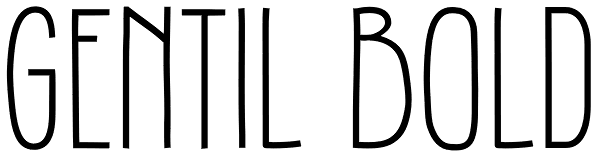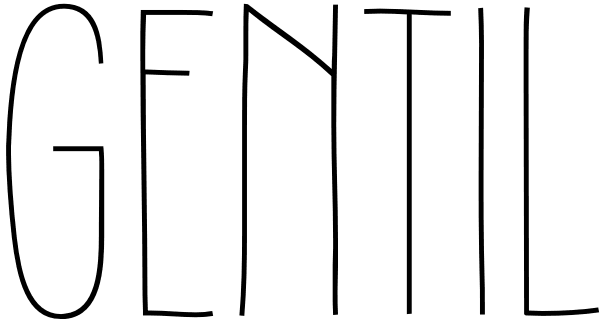
Gentil
Gentil is a charming hand-drawn typeface. It comes in two weights along with two handy accessory fonts, one packed with darling doodles and the other loaded with lovely frames. Versatile, this very friendly family will certainly fit easily a wide...
Gentil Bold
Gentil Doodles
Gentil
Gentil Frames